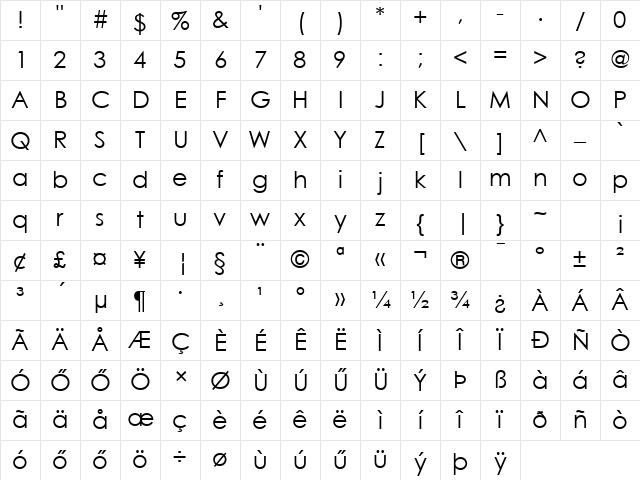
Complete Hu_Century Gothic Regular glyph index. Displaying only characters natively supported by Hu_Century Gothic Regular font.
Hu_Century Gothic takes a clean, functional approach - its unadorned letterforms prioritise legibility and work reliably across screen and print environments.
Font Pairing: Works well alongside a characterful serif or display font that can carry the expressive load while Hu_Century Gothic handles the functional copy.
Pro Tip: Use Hu_Century Gothic for UI labels, navigation, and short-form body copy where clean legibility is the priority.